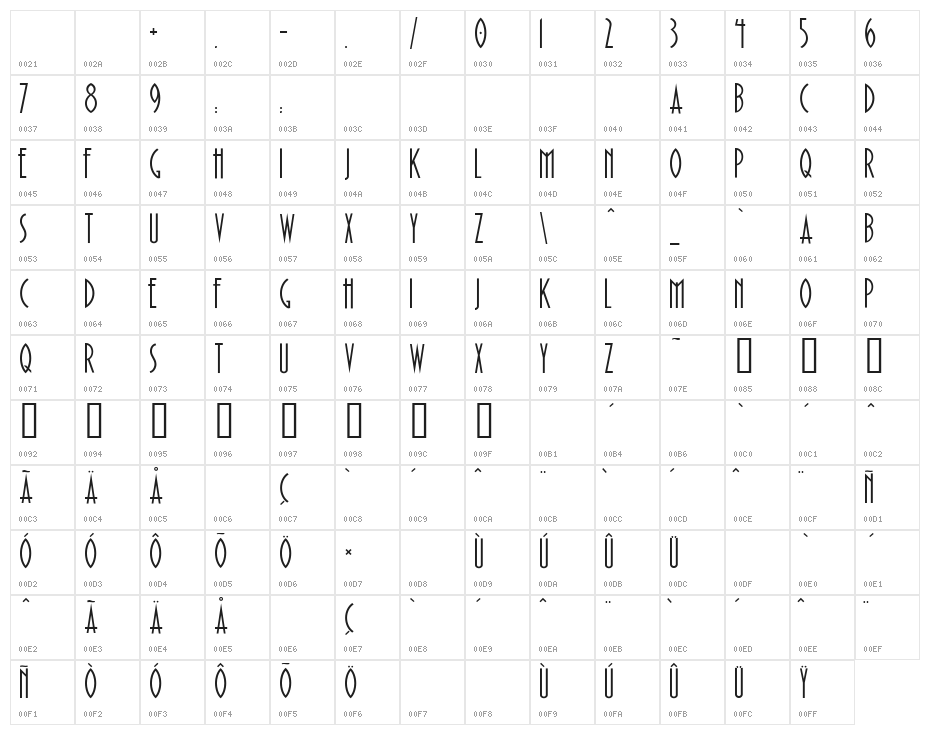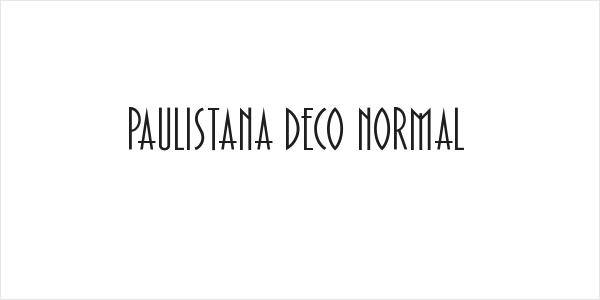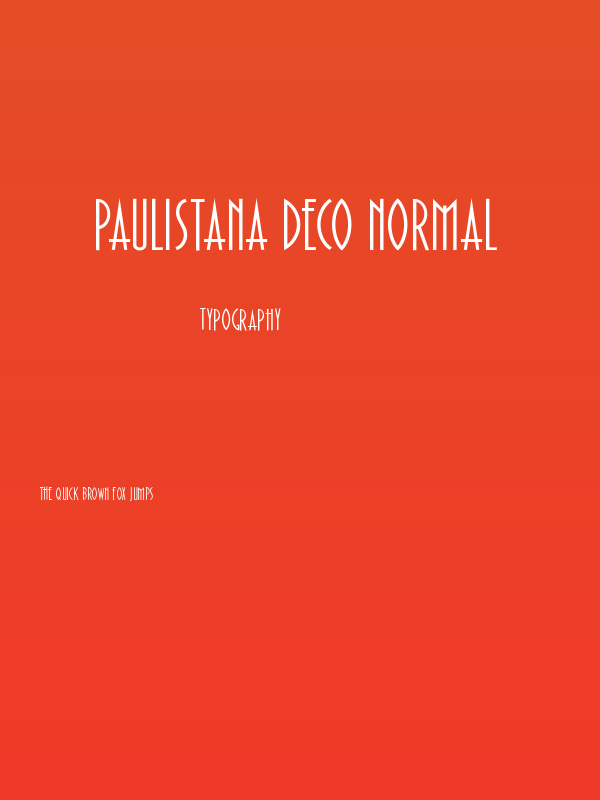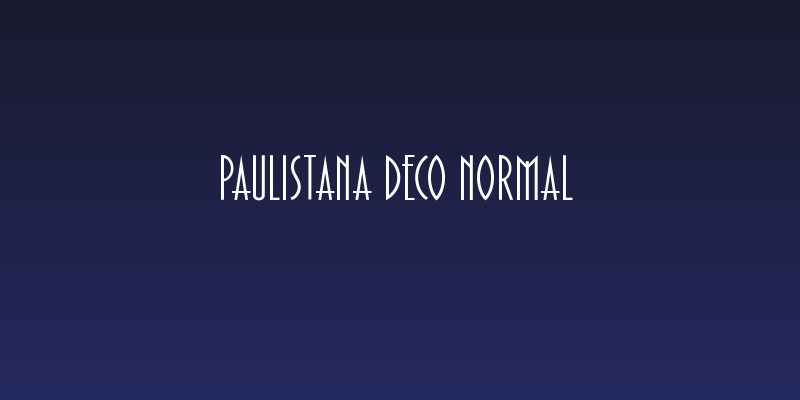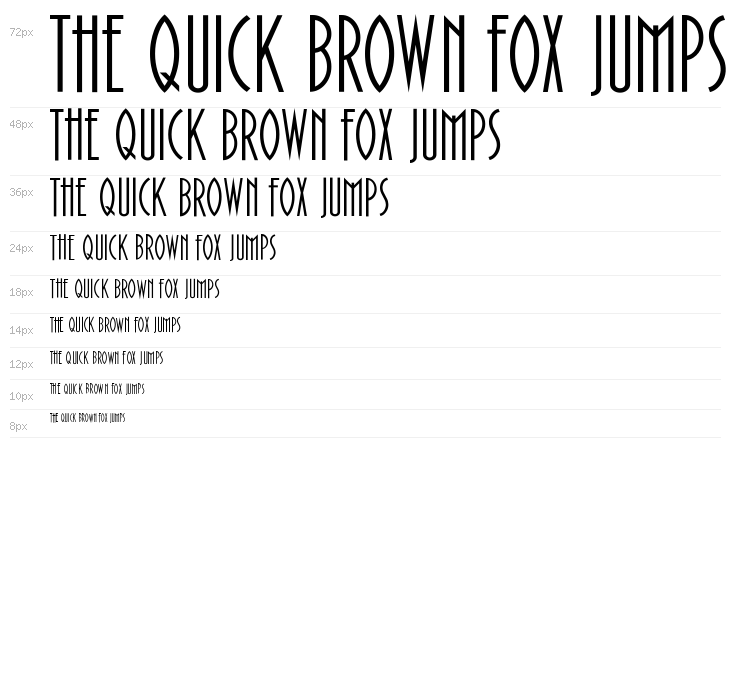
Paulistana Deco Normal Font
Paulistana Deco Normal Description
This font features a distinct Art Deco style with elongated, geometric letterforms. The characters are tall and narrow, with a consistent stroke width that gives a clean and elegant appearance. The uppercase letters are particularly striking, with sharp angles and a sense of symmetry that enhances their decorative appeal. The numerals and special characters maintain the same stylistic elements, ensuring a cohesive look across all text. This font is ideal for creating a vintage or retro aesthetic, drawing inspiration from early 20th-century design trends.
| Proposed Projects | Ideal for vintage posters, branding, invitations, and editorial design. |